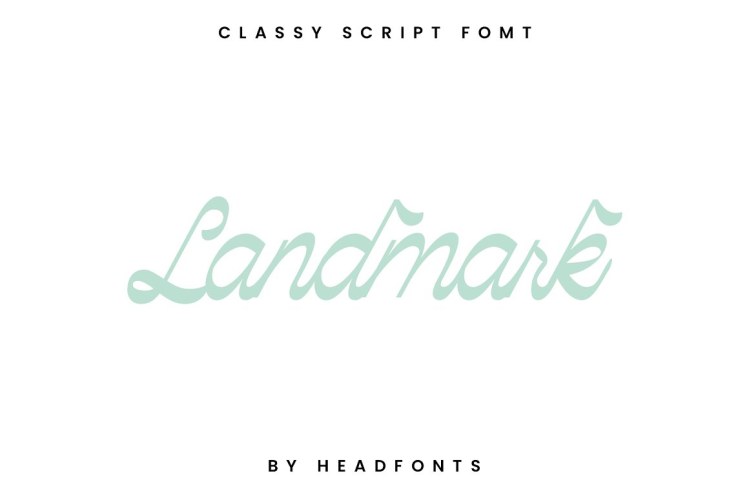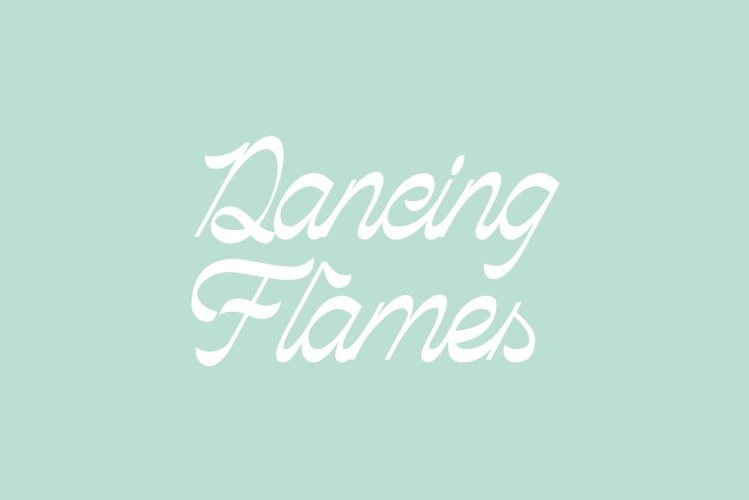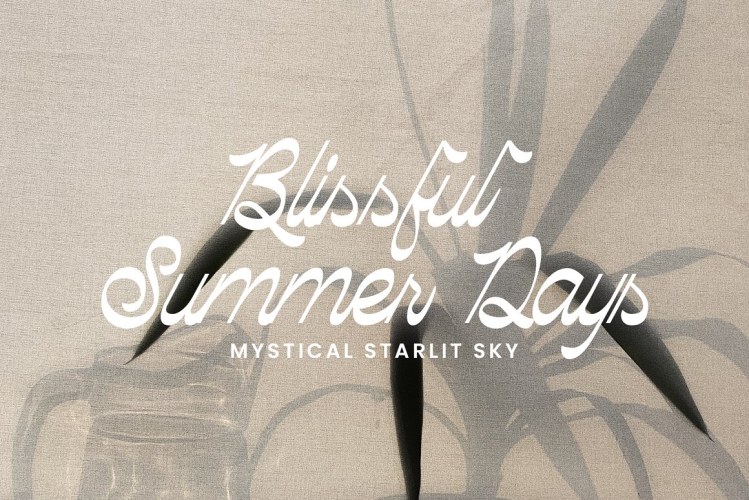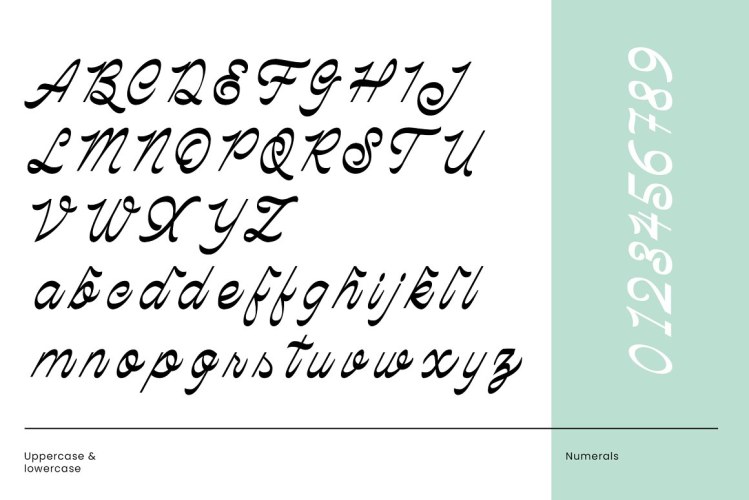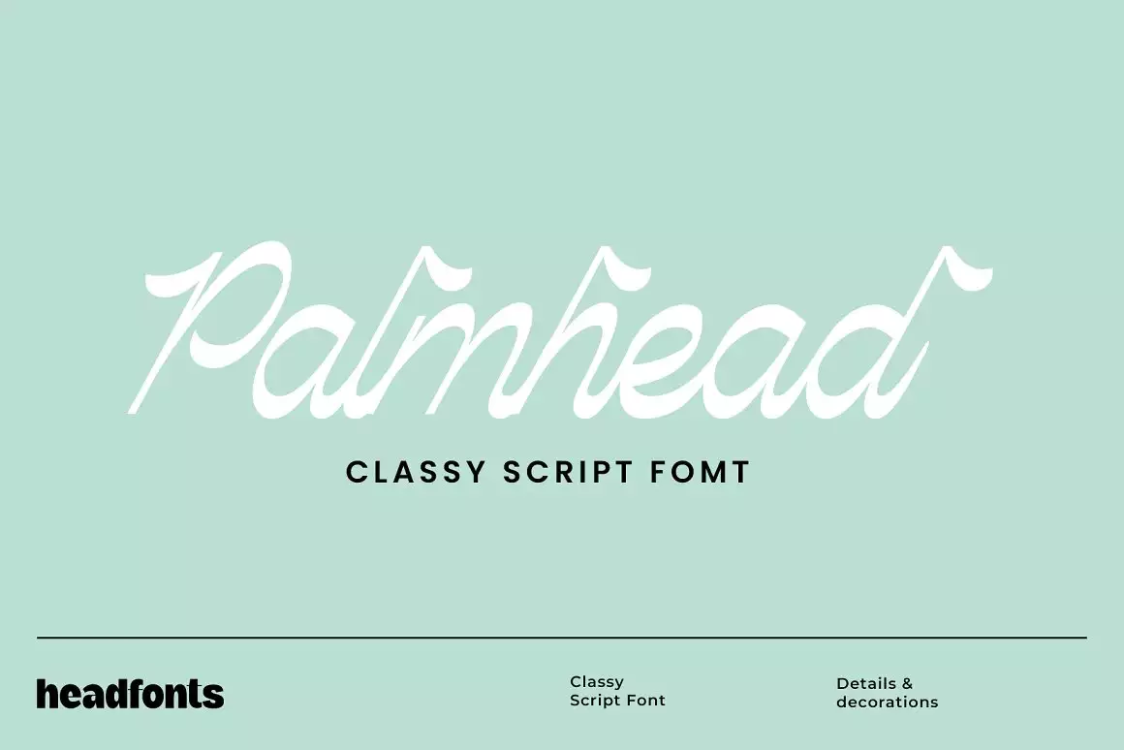
Palmhead Classy Script Font
We are excited to introduce Palmhead, the latest addition to our font collection. Palmhead is a beautiful script font that showcases its decorative elements and flowing curves. With its high x-height and distinctive design, Palmhead emulates the graceful strokes of handwriting with a marker. This font comes in a single weight and includes both uppercase and lowercase characters. It also offers numerals, symbols, and alternative characters.
Palmhead is the perfect choice for designs that seek an organic, yet elegant touch. Whether you’re working on branding materials for skincare products, flower shops, wedding stationery, or any other project, this typeface will bring a touch of simplicity and sophistication. Rest assured, Palmhead will add a touch of sparkle and grace to all your design endeavors.
Palmhead Classy Script Font is a Script And Handwritten font that brings a professional and versatile look to your projects. We are excited to introduce Palmhead, the latest addition to our font collection.